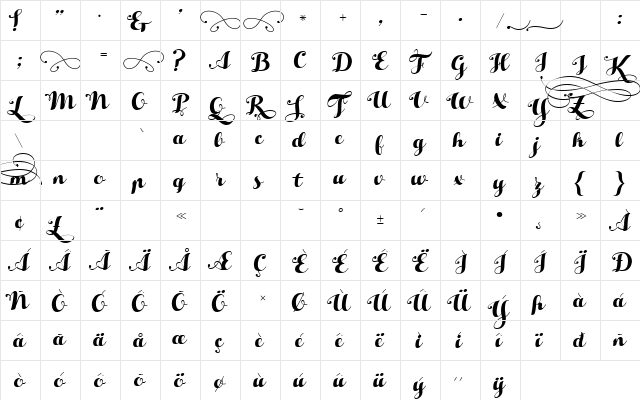
Hello Script Regular
| Foundry | Zetafonts |
| Designer | Cosimo Lorenzo Pancini |
Design Context for Hello Script Typeface
Hello Script flows with the natural rhythm of handwritten lettering, making it ideal for designs that call for warmth and personal expression.
Font Pairing: Combine Hello Script with a simple geometric sans for maximum contrast — the tension between flowing curves and clean structure is a classic typographic pairing.
Pro Tip: Pair Hello Script with a clean sans-serif for supporting text. The contrast between fluid script and geometric structure creates an elegant typographic hierarchy.